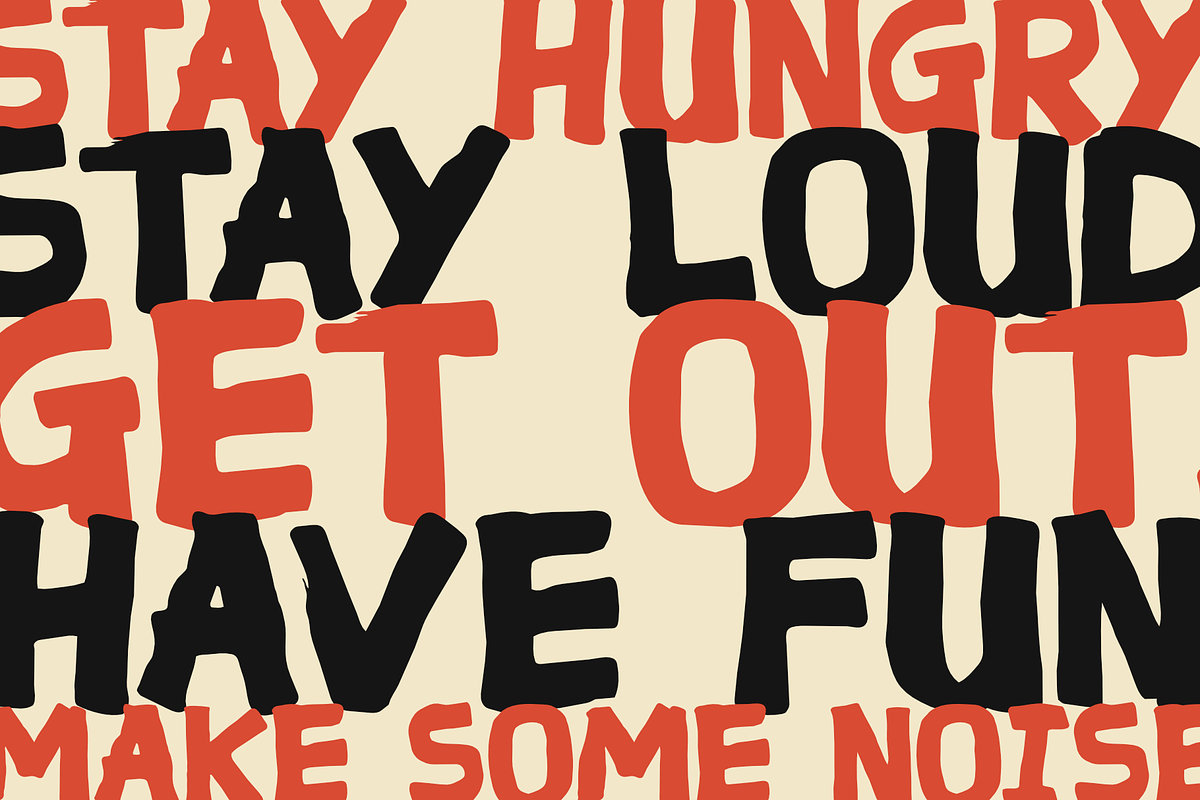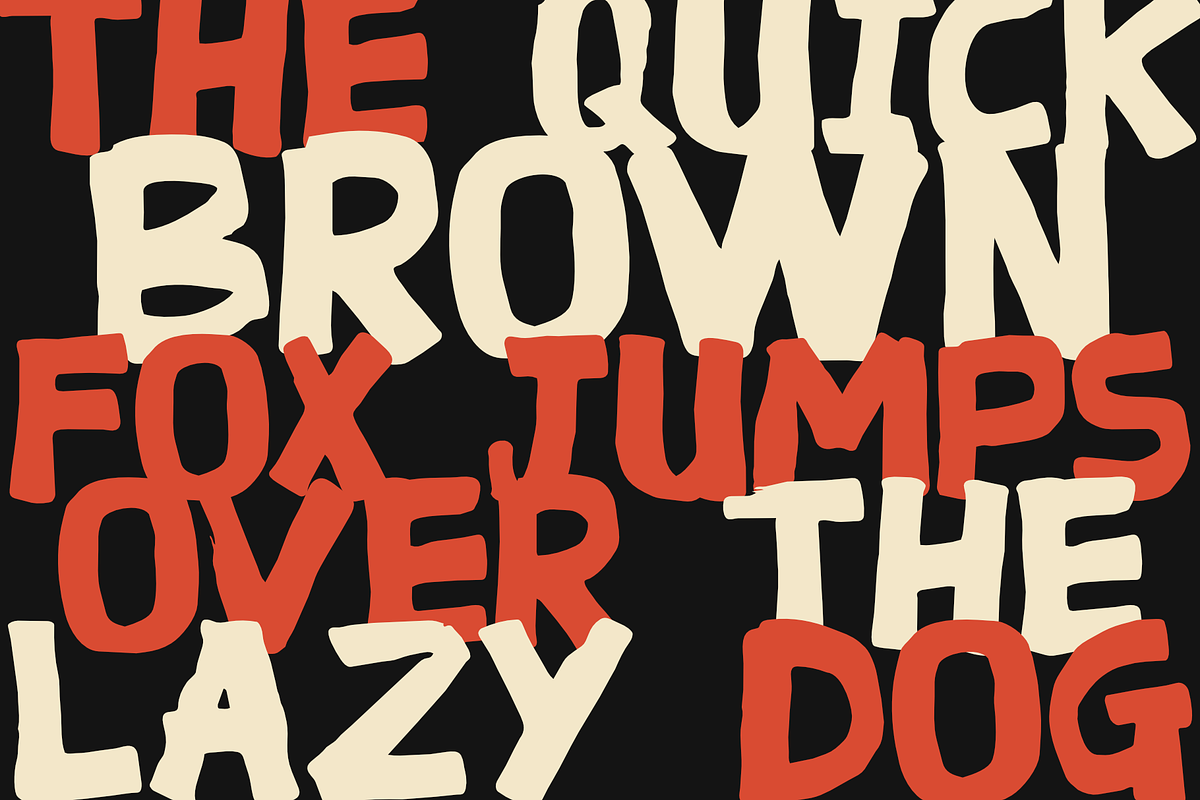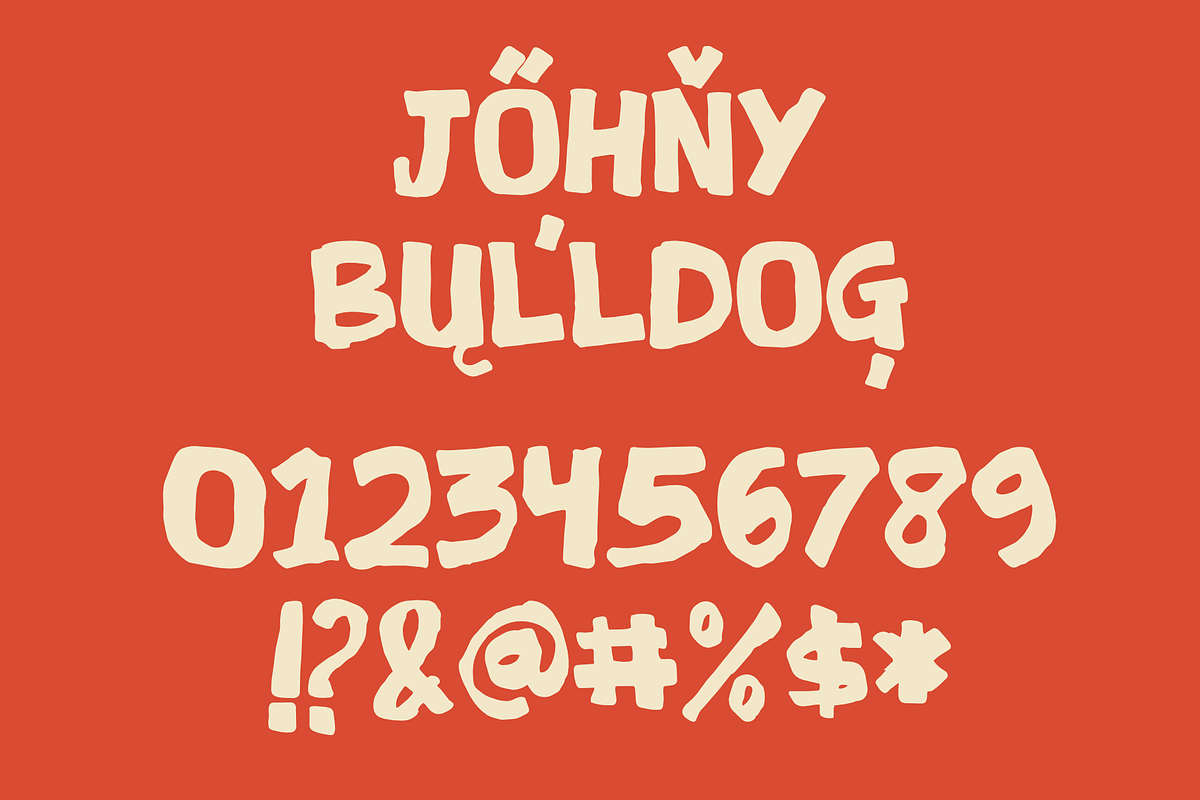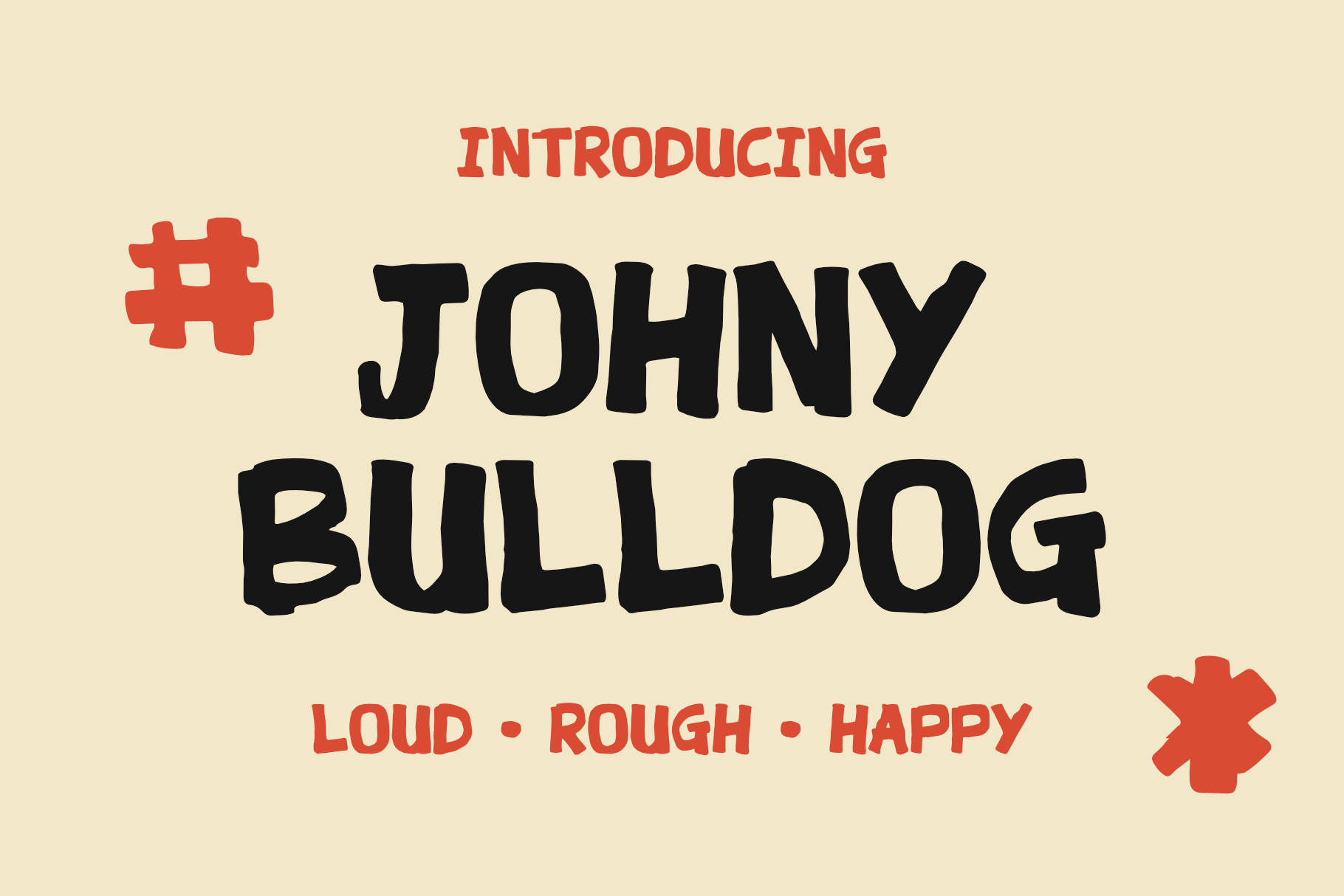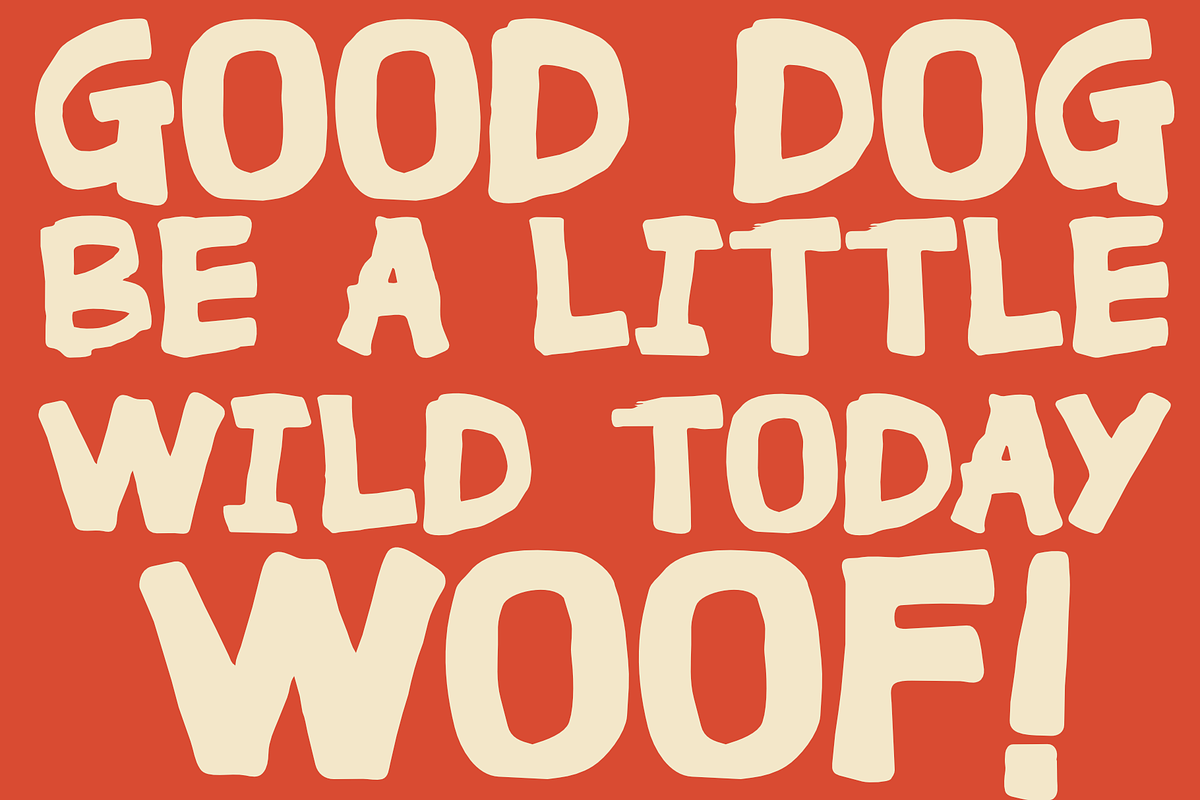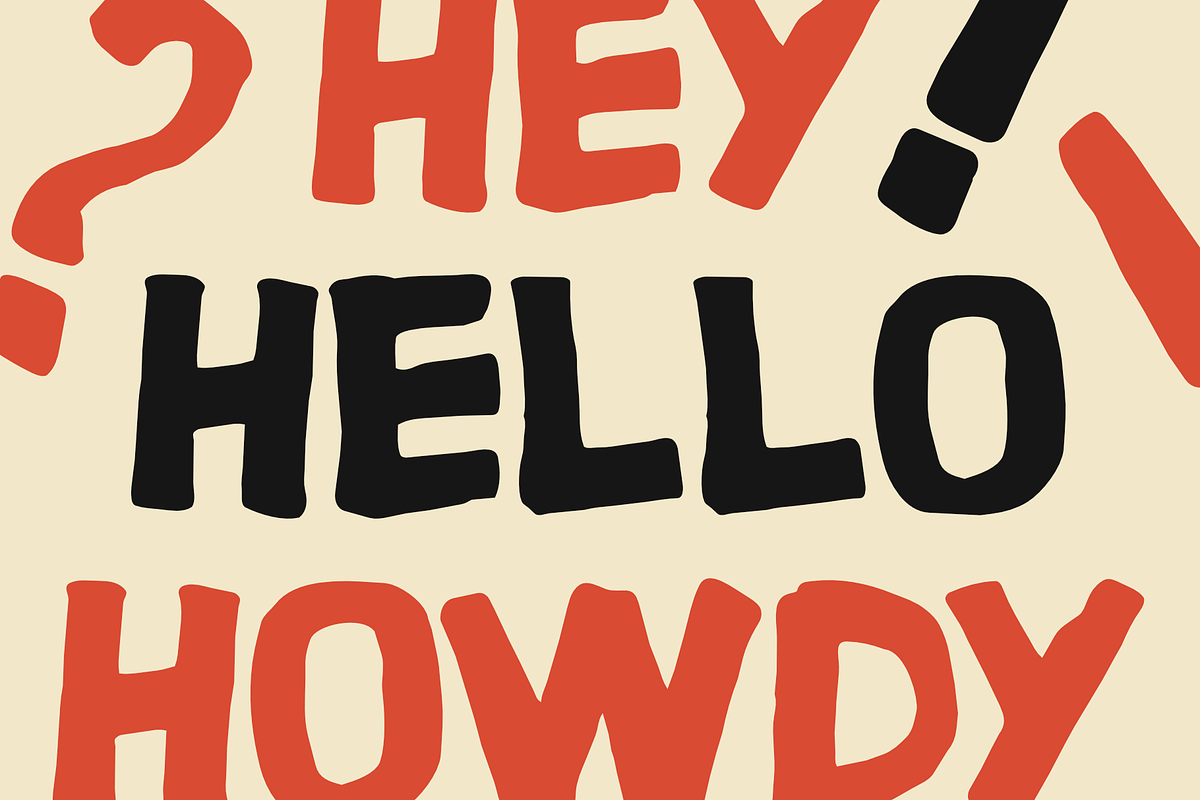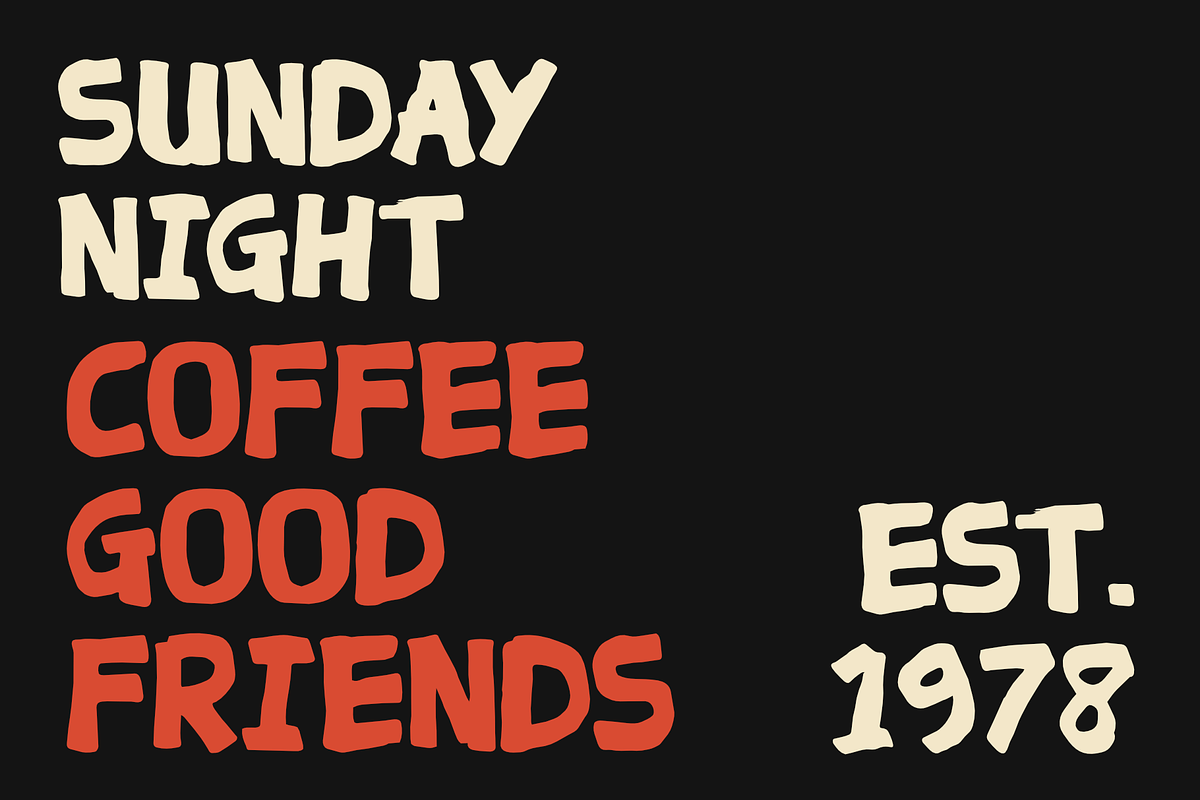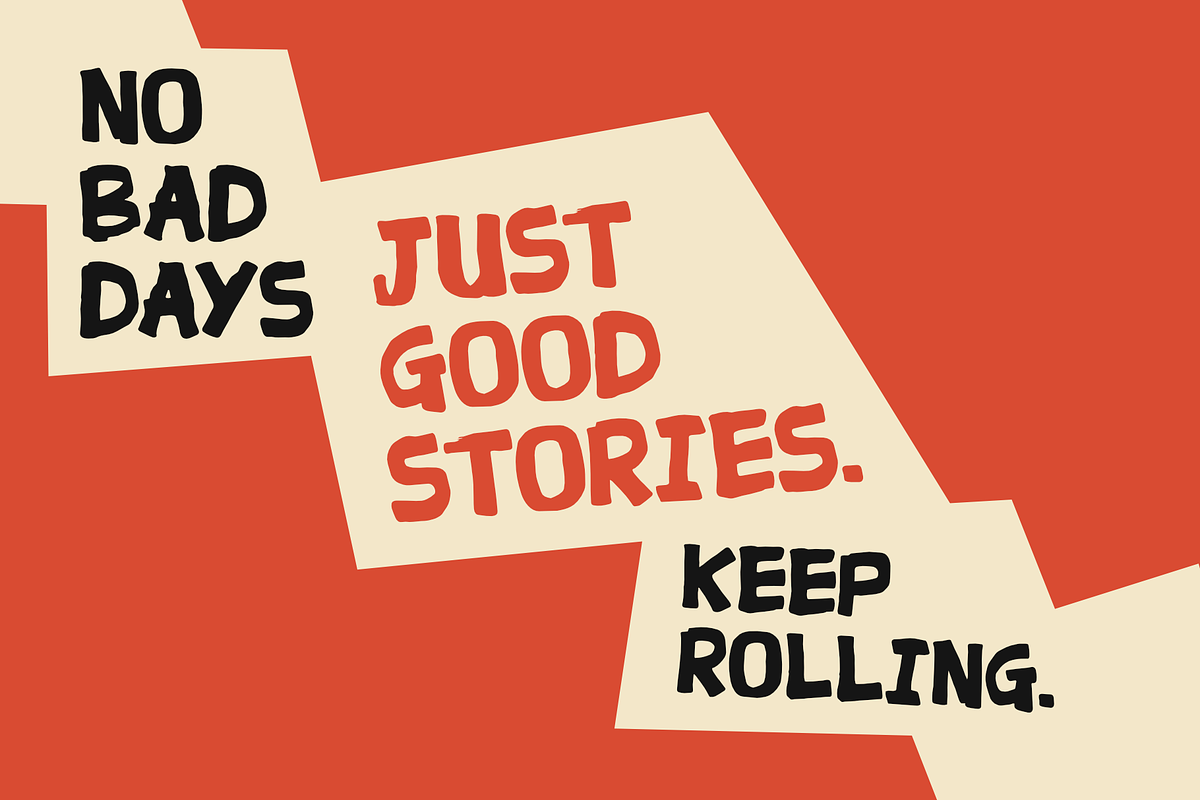
Johny Bulldog All Caps Display Font
Johny Bulldog — All Caps Display Font
Meet Johny Bulldog, a bold and playful all-caps display font with a rough, hand-lettered personality. Inspired by vintage poster lettering, hand-painted signs, and carefree graphic design, Johny Bulldog brings a little attitude, a little mess, and a whole lot of character to your designs.
With its chunky shapes, friendly curves, and slightly imperfect edges, Johny Bulldog feels confident without taking itself too seriously. It is made to stand out in big headlines while keeping a fun, approachable personality.
Perfect for posters, apparel, logos, packaging, stickers, labels, badges, album artwork, social media graphics, and any project that needs a bold handmade touch.
Johny Bulldog is made for big type, good times, and designs that refuse to look too perfect.